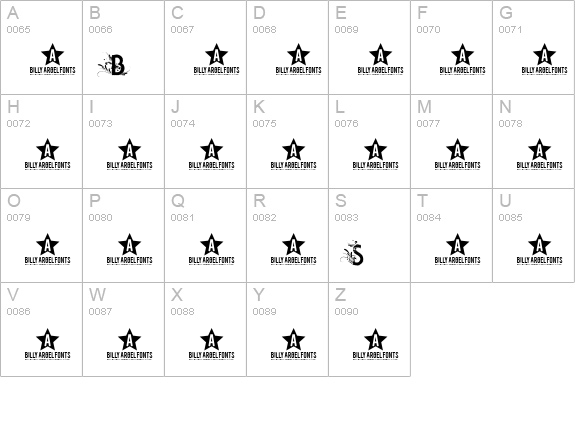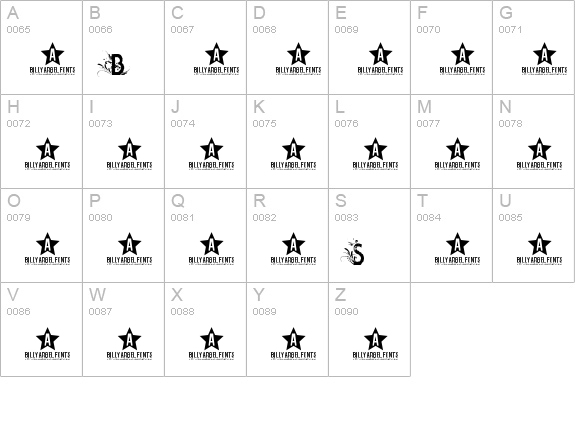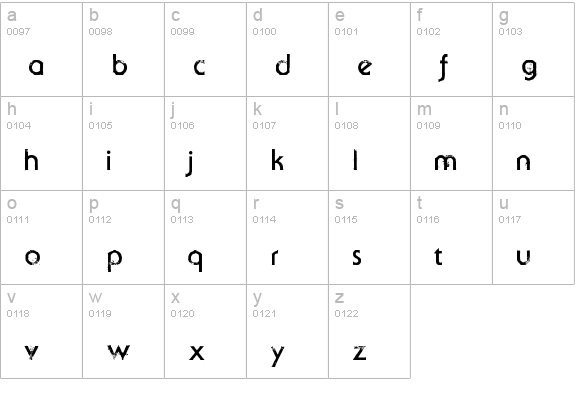
Beyond Sky trial Font Details
Introducing Beyond Sky trial font, a stunning typeface that will take your designs to new heights. With its sleek and modern look, Beyond Sky trial adds a touch of sophistication to any project. This versatile font is perfect for a wide range of applications, from branding and advertising to web design and print materials. What sets Beyond Sky trial font apart is its unique combination of elegance and readability. The carefully crafted letterforms and precise spacing make for effortless legibility, ensuring that your message is conveyed with clarity and style. Whether you're designing a logo, creating a poster, or crafting a website, Beyond Sky trial font will make your text stand out and leave a lasting impression. But the best part? Beyond Sky trial font is absolutely free! That's right, you can download this incredible font without spending a dime. Simply head over to FontsMarket.com and you'll have instant access to Beyond Sky trial font, ready to elevate your design game. Don't miss out on this amazing opportunity to enhance your projects with Beyond Sky trial font. Download it today and let your creativity soar.